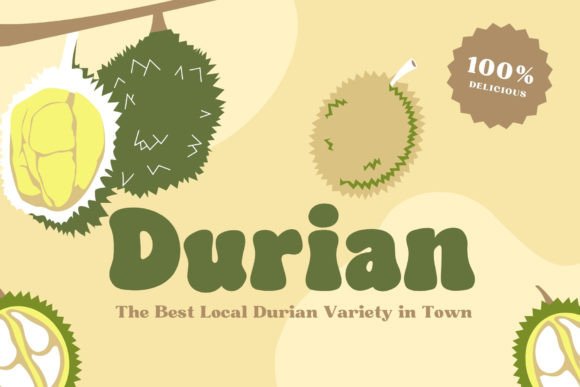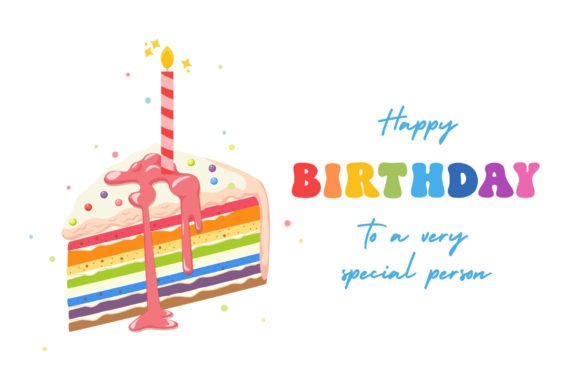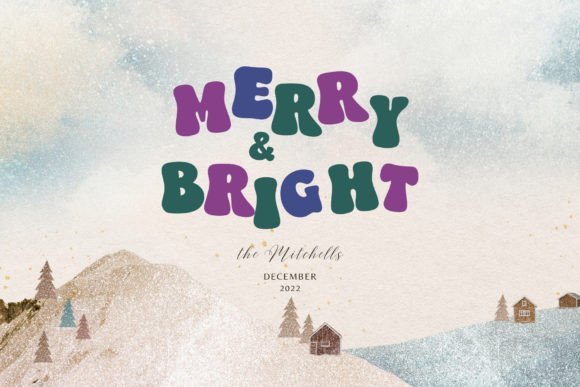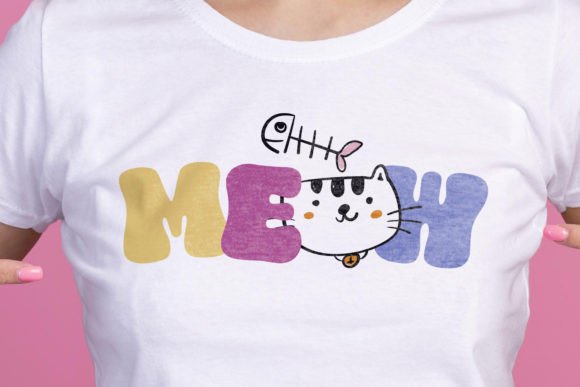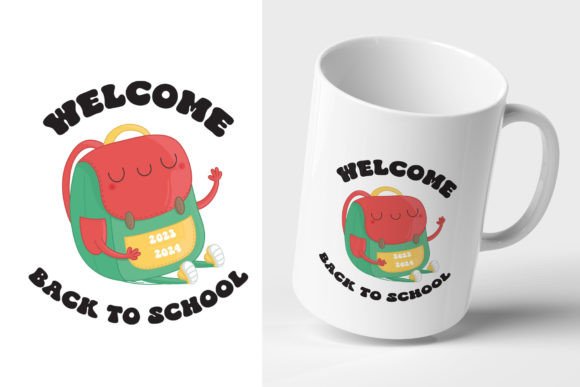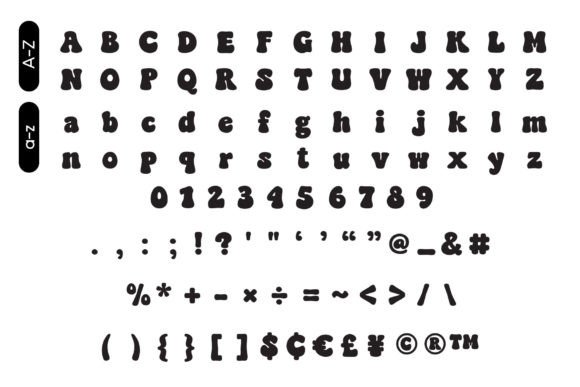
The Ultimate Guide to Fox Cherry Font: Adding a Groovy Touch to Your Designs
I’ll never forget the time I was working on a design project for a client’s children’s book cover. I had the concept, the colors, and the graphics all sorted out, but something was missing – the perfect font. I scrolled through page after page of Google Fonts, but nothing seemed quite right. That’s when I stumbled upon Fox Cherry, a groovy and playful display font that instantly captured the cool, retro style I was looking for.
Fun and funky, Fox Cherry is perfect for adding a touch of personality to any design project. Whether you’re creating T-shirts, stickers, children’s book covers, social media posts, or anything in between, this font is sure to make your designs stand out.
- ✅ Unique and playful design that’s sure to grab attention
- ✅ Highly versatile and can be used for a wide range of design projects
- ✅ Easy to read, even in larger sizes
- ✅ Works well with both bold and light colors
- ⚠️ May not be the best choice for body text or longer paragraphs, as it’s primarily designed for display purposes
- ⚠️ Some users may find the font a bit too playful or childish for certain projects
The Backstory Behind Fox Cherry
Fox Cherry was designed by a team of creatives who wanted to create a font that captured the fun and playfulness of the 60s and 70s. Inspired by retro posters, vinyl records, and vintage advertisements, Fox Cherry is a font that’s all about good vibes and great design.
| Font Name | Fox Cherry Font |
| Author | Fox7 |
Q: What type of projects is Fox Cherry best suited for?
A: Fox Cherry is perfect for designs that need a touch of personality and playfulness, such as children’s book covers, T-shirts, stickers, and social media posts.
Q: Is Fox Cherry a difficult font to read?
A: No, Fox Cherry is designed to be easy to read, even in larger sizes. However, it’s primarily intended for display purposes, so it may not be the best choice for body text or longer paragraphs.